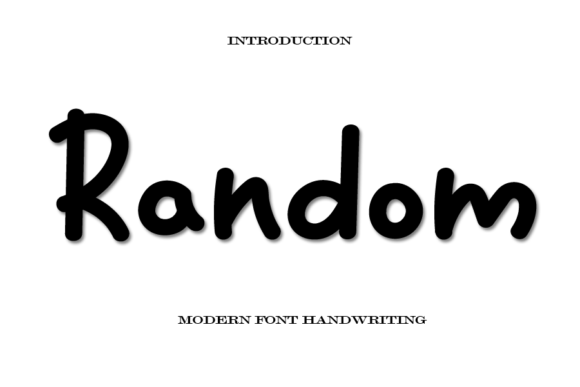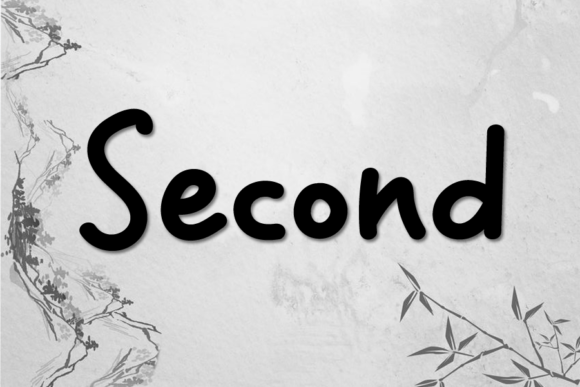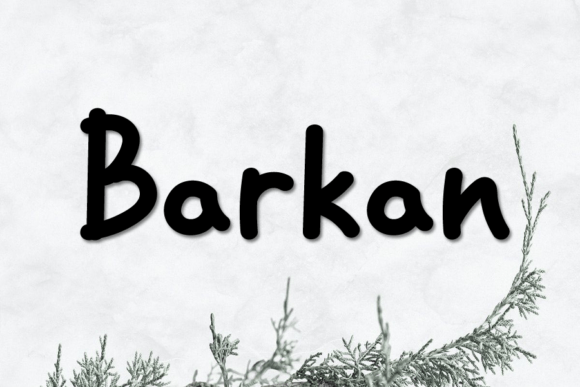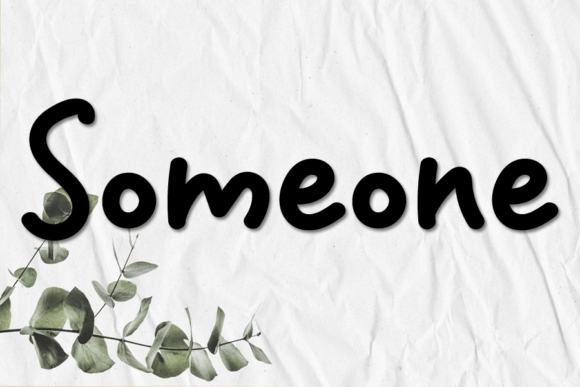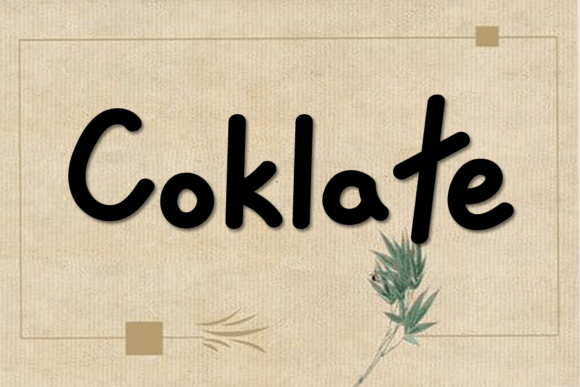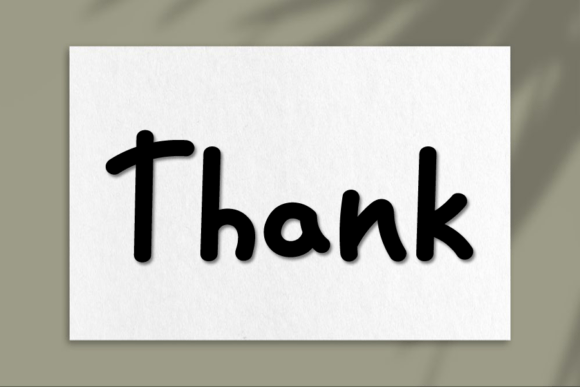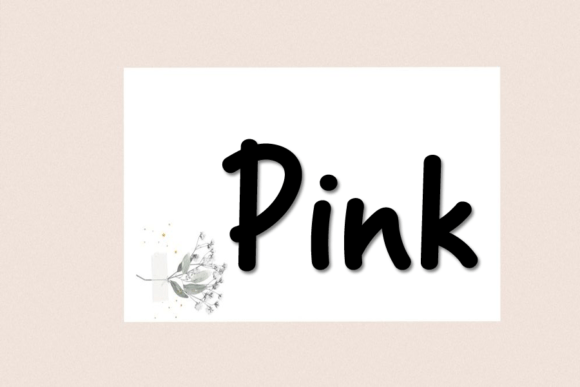
Random Font
Add a Romantic Spark with Random Font
Random Font is a delightful cursive handwritten script with a soft and joyful personality. Its flowing strokes and smooth rhythm make it the perfect font for a wide range of creative uses, from romantic projects to cheerful greetings. Designed with elegance in mind, this font adds a heartwarming touch to any layout it’s applied to.
Whether you’re designing for weddings, heartfelt messages, or custom stationery, Random Font blends style and simplicity with ease. Its charm lies in its natural curves and legible strokes, making every word feel more personal and sincere.
Perfect for Many Design Projects
Thanks to its sweet and whimsical style, Random Font works wonderfully for:
• Wedding invitations and thank-you cards
• Greeting cards and holiday designs
• Social media posts and inspirational quotes
• Product packaging and branding
• Logos, name cards, and business materials
• Journals, labels, and personal planners
No matter your design goal, this font adds a lovely balance between playful and graceful aesthetics.
Designed to Impress
This script font is not only easy on the eyes—it’s versatile too. It pairs beautifully with minimalist layouts or intricate graphics. The subtle cursive style enhances readability while delivering a handcrafted, emotional appeal. Your audience will feel the warmth and thoughtfulness behind every message.